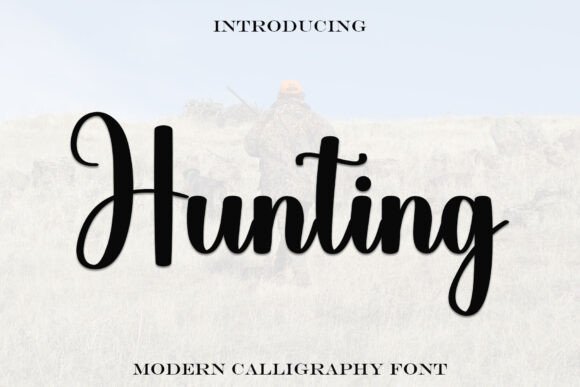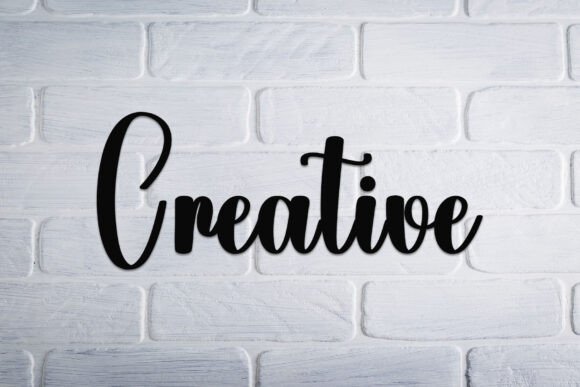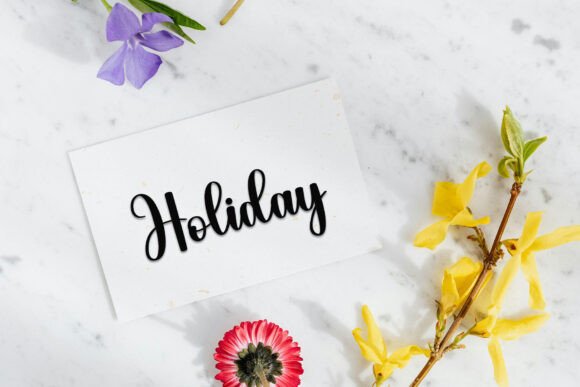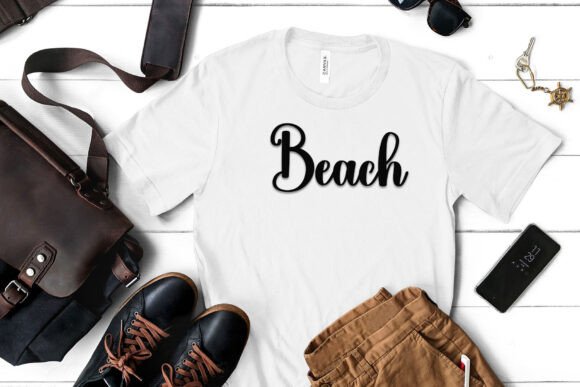
Hunting Font
About the Hunting Font
Crafted with precision, the Hunting Font is ready to bring your ideas to life. Hunting is a trendy handwritten font with a contemporary atmosphere and impeccable form, inspired by timeless classic calligraphy. It will add elegance and class to any of your design projects.
Hunting Font’s elegant, yet contemporary style makes it ideal for headlines, short text blocks in branding materials, or high-end product packaging. Its flowing script lends itself well to invitations and short, impactful quotes, adding a touch of sophistication. However, its decorative nature makes it unsuitable for body text, long paragraphs, or UI elements where legibility is paramount.
Pairing Hunting Font effectively requires considering its inherent elegance. A clean, geometric sans-serif like Montserrat would provide a strong contrast and enhance readability in supporting text. For a more traditional feel, a classic serif like Garamond could complement its calligraphic inspiration. Avoid pairing it with other highly decorative fonts to prevent visual clutter.
The overall personality of Hunting Font is sophisticated and subtly modern. It projects an air of refined luxury, making it a perfect choice for brands aiming for an upscale and timeless aesthetic.
Hunting Font Usage Examples
Hunting Font Example